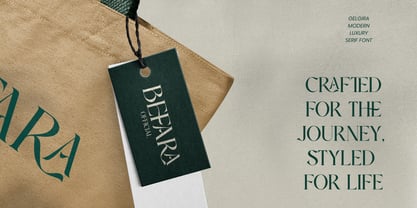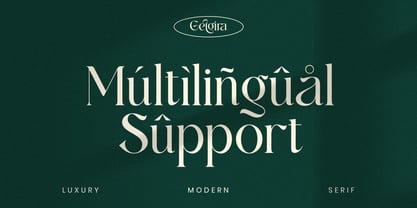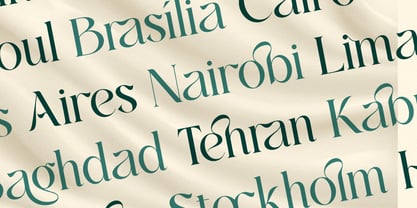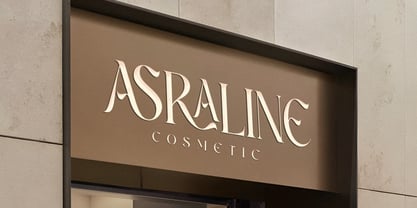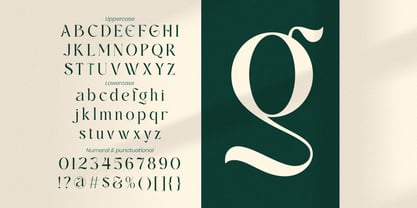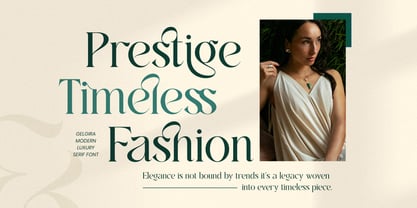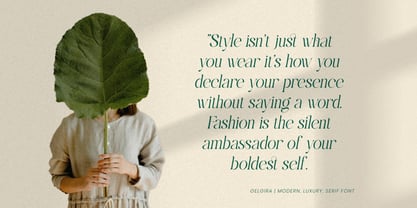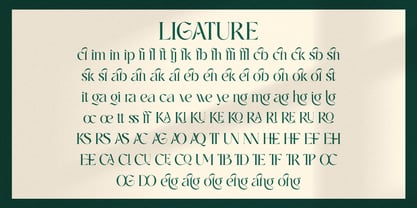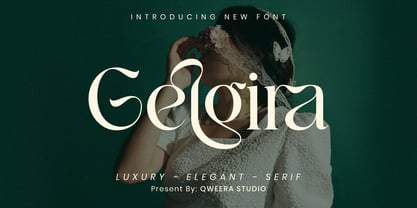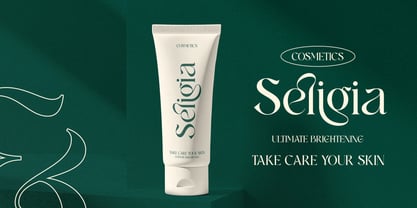
Gelgira
by Qweera Studio
The Gelgira Font Family was designed by Idhham Cholid Rikzano Yahya and published by Qweera Studio. Gelgira contains 2 styles and family package options. More about this family
Gelgira is a modern romantic display serif designed with precision and expressive elegance. Its high-contrast construction and flowing swash forms create visual sophistication suited for luxury branding and editorial systems. Carefully crafted alternates and ligatures enhance typographic flexibility while maintaining structural clarity and refined rhythm. Gelgira is ideal for professionals seeking feminine elegance without sacrificing authority and balance. Features Alternates & ligatures Swash glyphs Professional kerning Multilingual support PUA encoding Specifications Language Support: Western, Central Europe Features: Alternates, Ligatures, Swash, Kerning Recommended For Brand identity systems, editorial typography, packaging design, fashion campaigns, luxury print & digital applications.
Designers: Idhham Cholid Rikzano Yahya
Foundry: Qweera Studio